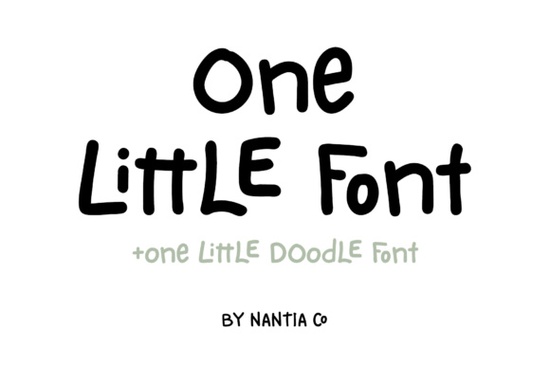
One Little Font is a charming typeface that brings a unique, hand-crafted feel to any design project. Whether you're working on a personal art piece, a small business logo, or custom merchandise, this font adds a playful and expressive touch. Its double letter ligatures and stylistic alternates make it easy to create visually interesting text without sacrificing readability.
If you're looking for a font that feels personal and creative, One Little Font could be the perfect fit. It's ideal for projects that need a bit of warmth and character, like greeting cards, social media graphics, or even branding materials. The font’s versatility means it can work in both digital and print formats, making it a valuable addition to any designer’s toolkit.
One of the standout features of One Little Font is its ability to add personality to your work. Unlike more rigid or formal typefaces, this font has a friendly and approachable vibe. It’s especially well-suited for projects that aim to convey a sense of authenticity or creativity. From handwritten-style quotes to product labels, One Little Font can help you achieve a more organic look.
How to Use One Little Font in Different Projects
One Little Font works well in a variety of design contexts. For example:
- Branding: Use it for logos, business cards, or packaging to give your brand a more personal and artistic feel.
- Print-on-demand: Add it to t-shirts, mugs, or other products to create eye-catching designs that stand out.
- Social media: Incorporate it into posts, banners, or profile pictures to make your content more engaging and visually appealing.
The font’s stylistic alternates allow for customization, so you can mix and match different letterforms to suit your style. This flexibility makes it a great choice for designers who want to maintain a cohesive look while still adding some visual interest.
Why Choose One Little Font Over Other Script Fonts?
When compared to other script fonts, One Little Font offers a distinct balance between elegance and playfulness. While some fonts may feel too ornate or difficult to read, this one maintains a clean and readable structure. It’s also less common than many other script fonts, which means it can help your designs stand out without being overwhelming.
For those who enjoy working with hand-written styles, One Little Font provides an authentic feel without requiring advanced design skills. You don’t need to be a professional to use it effectively just a basic understanding of typography and design principles will go a long way.
If you’re new to using custom fonts, you might want to start with a simple project, like creating a poster or a social media graphic. As you become more comfortable, you can experiment with more complex designs and combine One Little Font with other typefaces to create a more dynamic look.
One Little Font is a great choice for anyone looking to add a personal and creative touch to their work. With its unique style and versatile applications, it can help bring your ideas to life in a way that feels authentic and expressive.